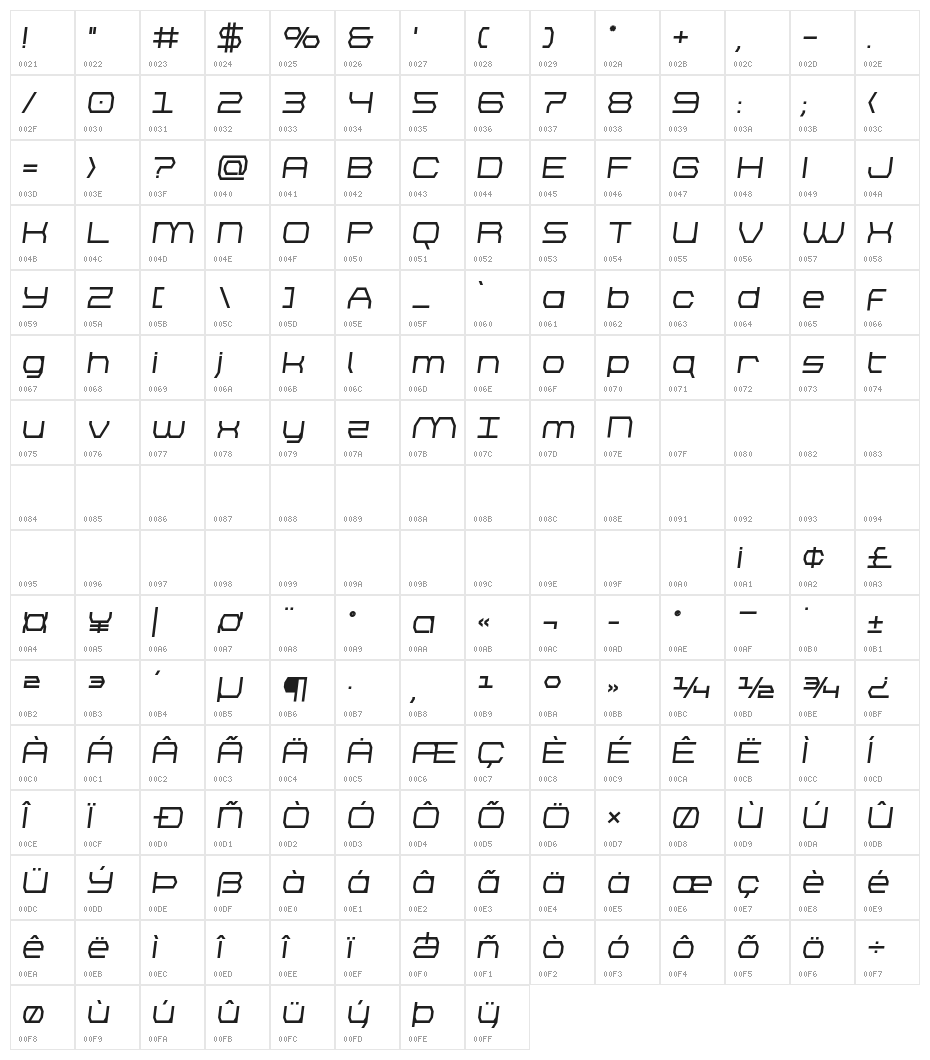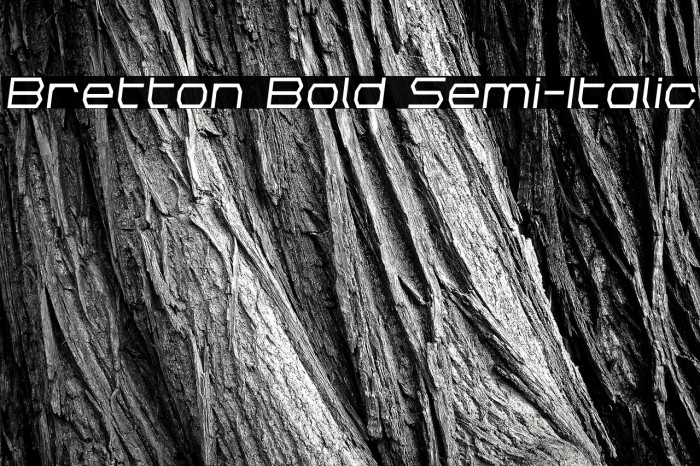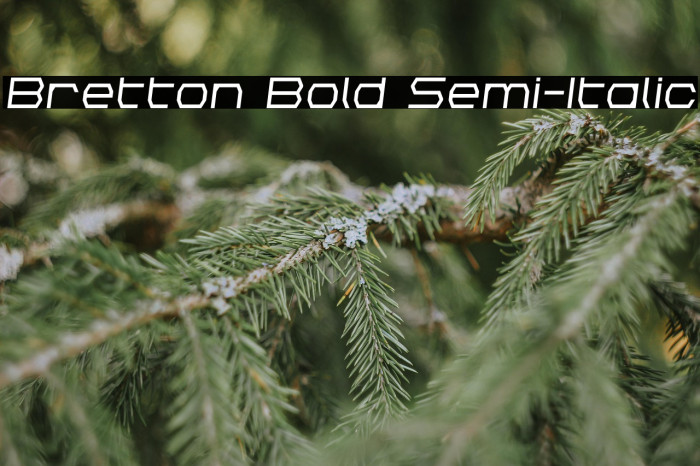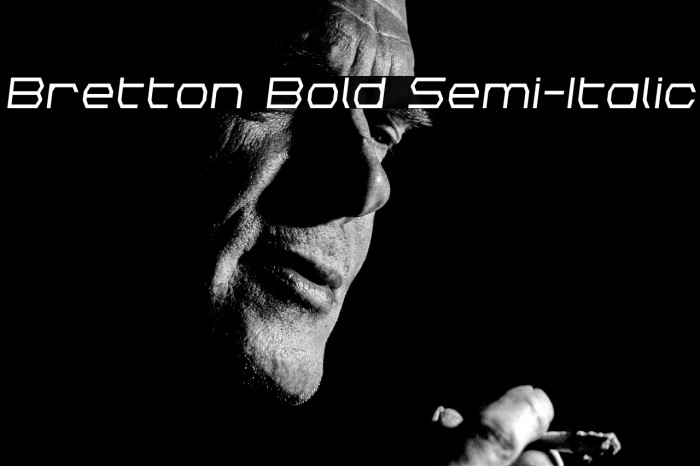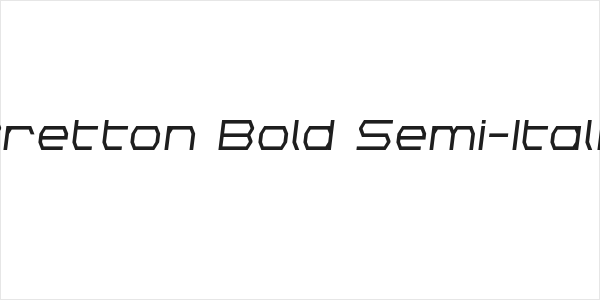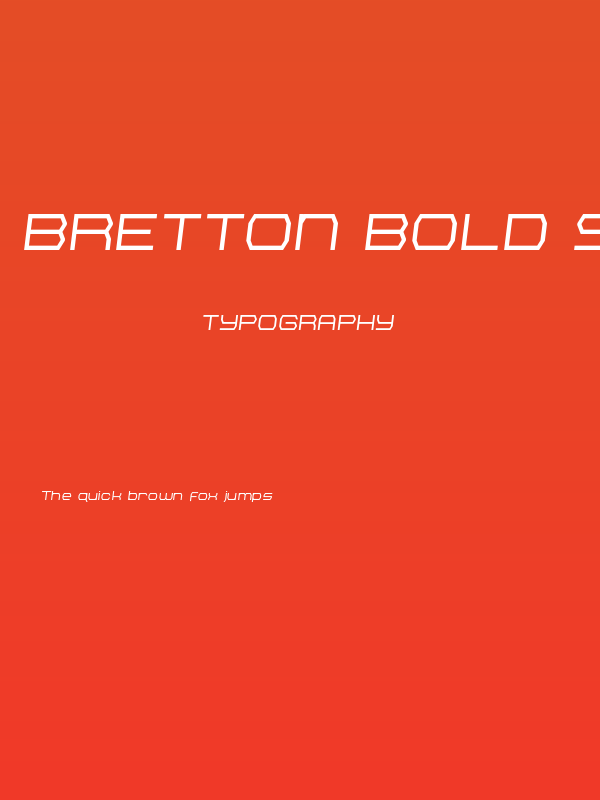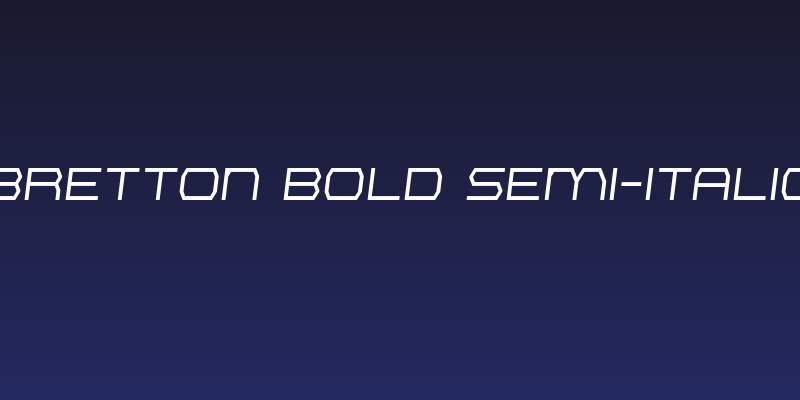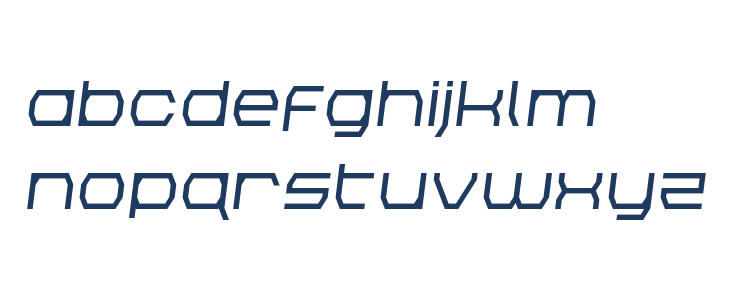
Bretton Bold Semi-Italic Font
Bretton Bold Semi-Italic Description
This font features a geometric and angular design, characterized by its bold and semi-italic style. The uppercase and lowercase letters maintain a consistent structure with sharp edges and a futuristic appearance. The numbers and special characters follow the same angular theme, providing a cohesive look across all glyphs. The font's unique style makes it stand out, with a modern and technical feel that is both eye-catching and versatile.
| Proposed Projects | Ideal for technology branding, futuristic posters, video game titles, and sci-fi themed projects. |